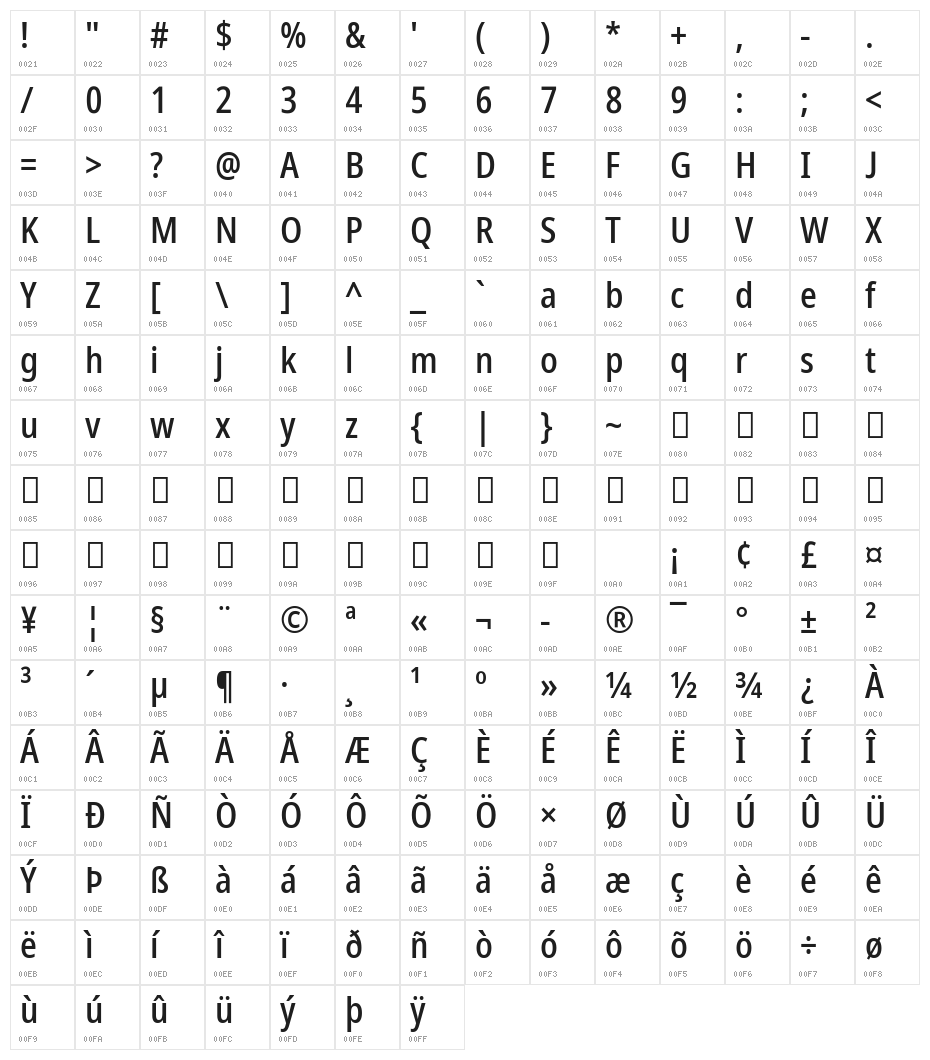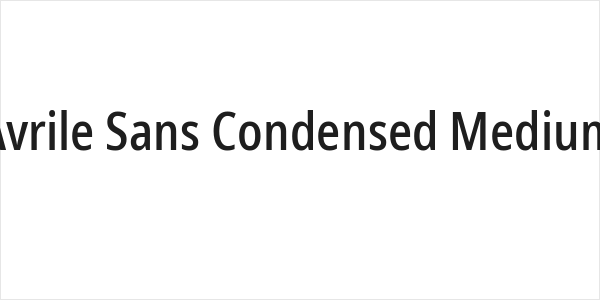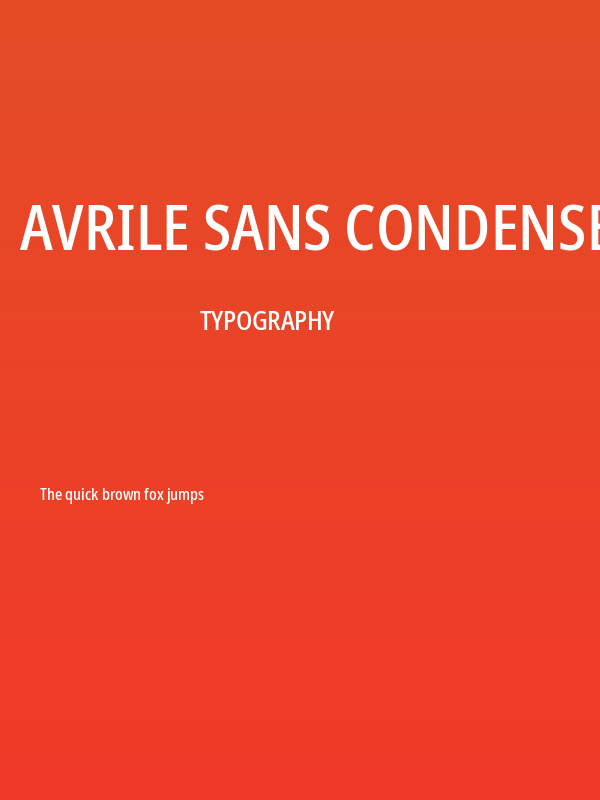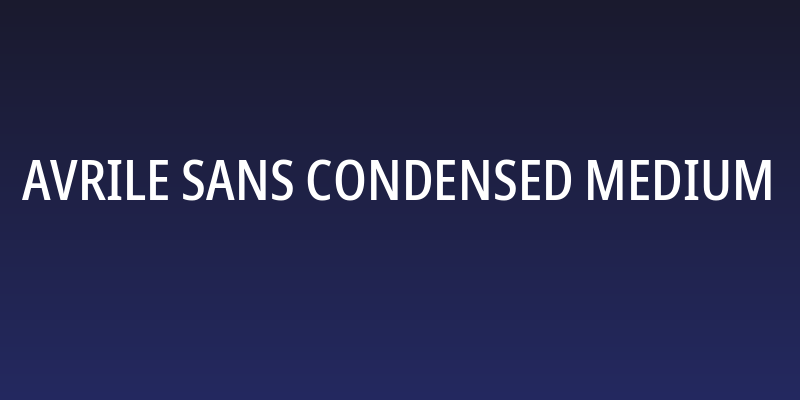
Avrile Sans Condensed Medium Font
Avrile Sans Condensed Medium Description
This font features a clean and modern sans-serif design with a condensed structure, making it ideal for maximizing space while maintaining readability. The characters are uniformly proportioned, with a medium weight that provides a balanced appearance. The strokes are consistent, offering a low contrast that enhances its legibility across various sizes. Its straightforward and uncluttered style makes it versatile for a range of applications, from digital interfaces to print media.